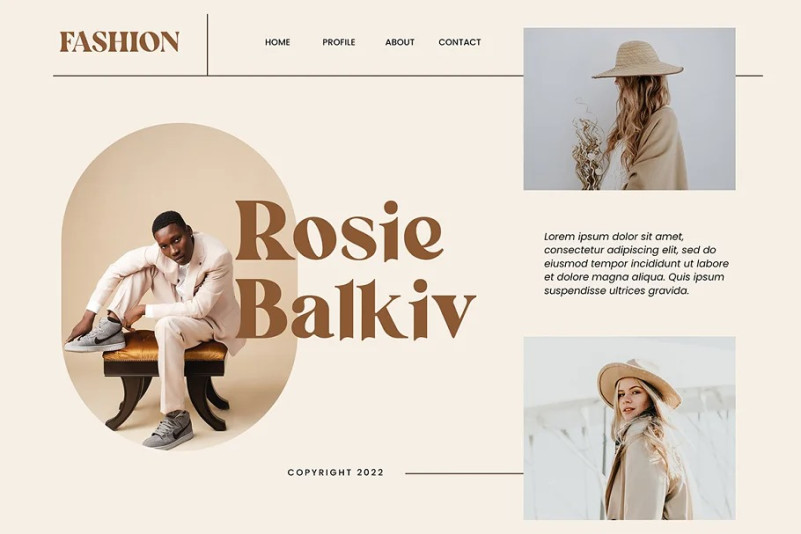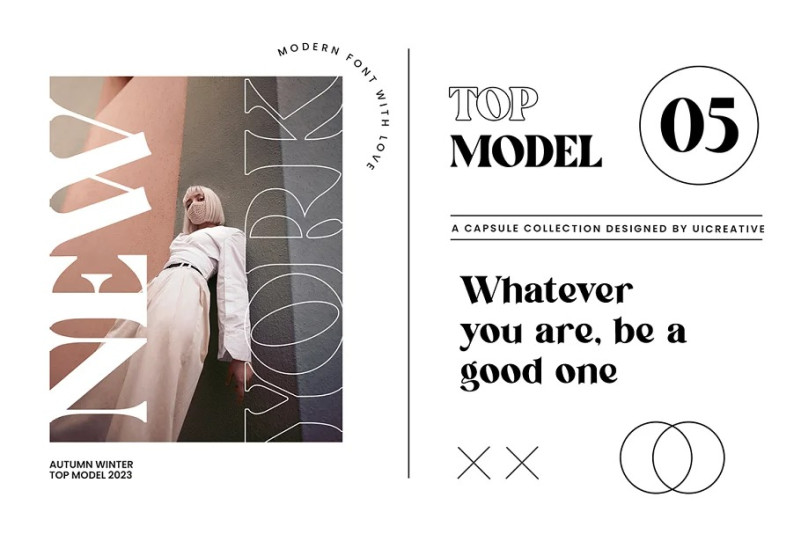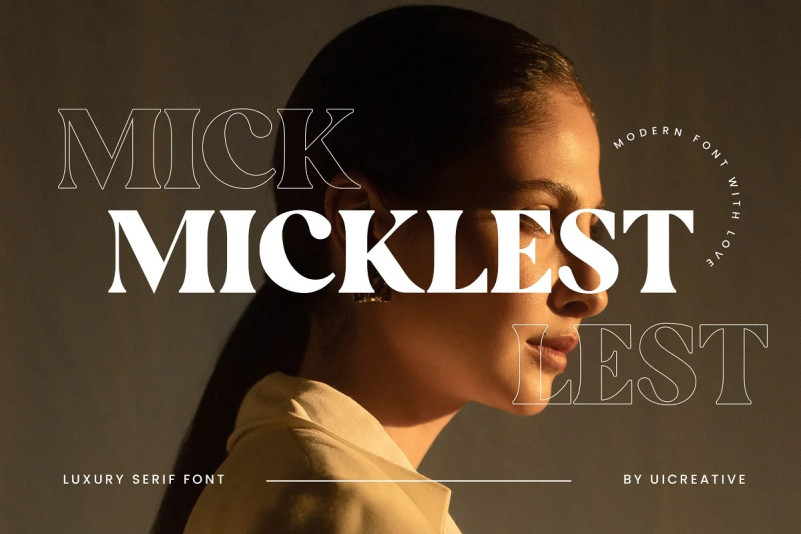
Micklest Font
Micklest Font – Luxury Serif Font. Modern Serif font that feels beautiful classy, elegant, and modern. This font is ideally suited for a wide variety of projects, such as signature, stationery, logo, wedding, typography quotes, magazine or book covers, website headers, clothing, branding, packaging design, and more. Also, fashion-related branding or editorial design displays both masculine and feminine qualities.